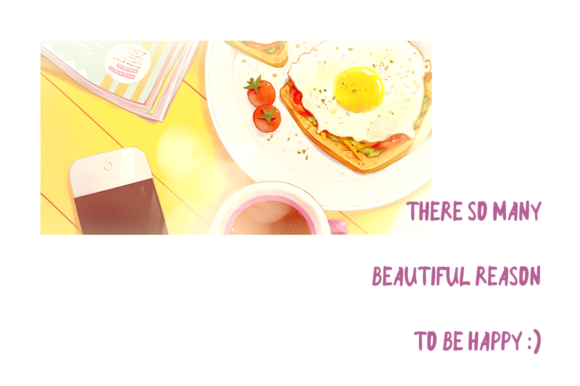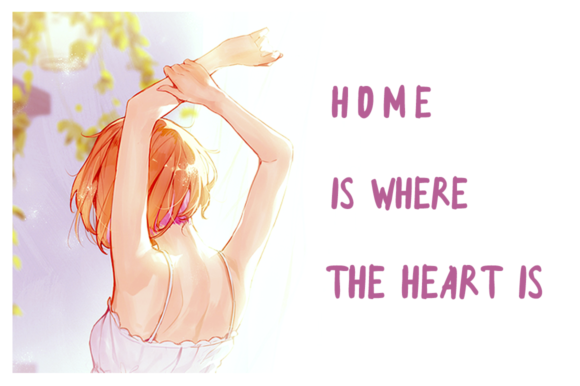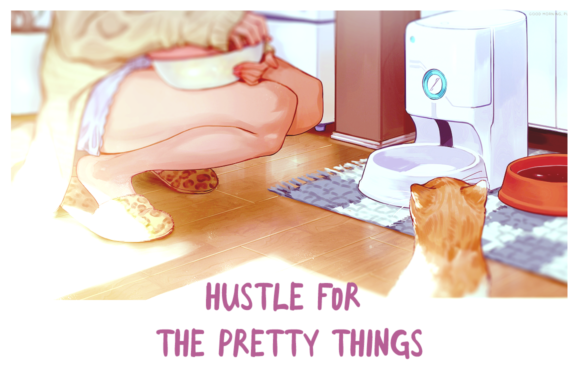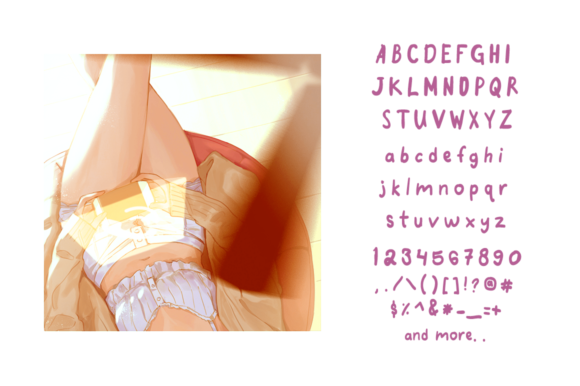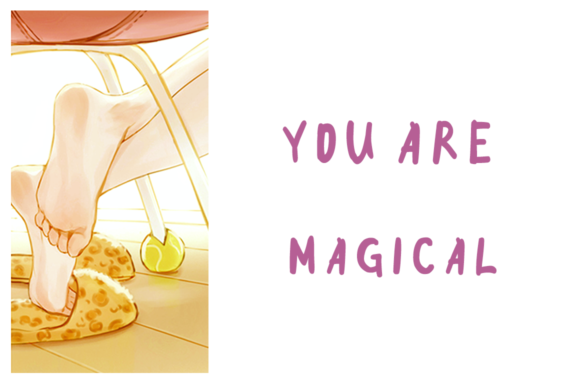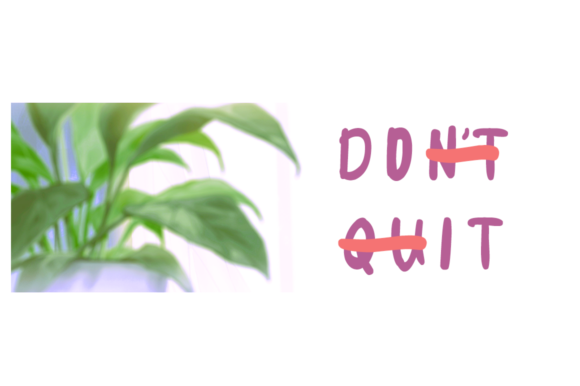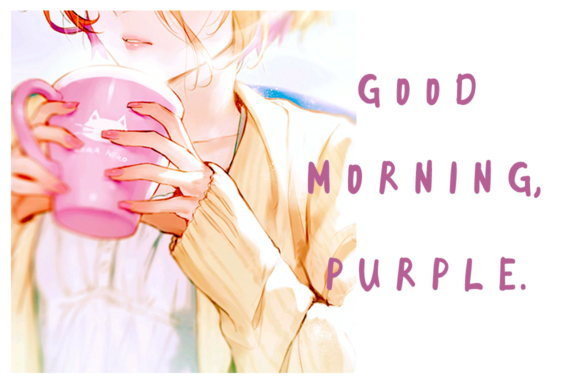
Introducing Good Morning Purple Font: Add a Breezy Touch to Your Creations
Are you tired of using the same old fonts in your designs? Look no further than the Good Morning Purple Font! This fun sans serif font is perfect for amplifying the breeziness of your works, adding a touch of personality to your creations. In this article, we’ll dive into the features and benefits of Good Morning Purple, and explore how it can elevate your designs.
A Fun and Highly Legible Font
Good Morning Purple is a highly legible font, making it perfect for use in both headlines and body texts. Its sans serif design ensures that your text remains clear and easy to read, even at smaller font sizes. This makes it an excellent choice for designers and crafters who want to add a personal touch to their work without sacrificing readability.
One of the standout features of Good Morning Purple is its unique and playful aesthetic. The font’s breezy feel makes it perfect for designs that require a lighthearted and carefree vibe. Whether you’re working on a project for a children’s brand, a lifestyle blog, or a creative agency, Good Morning Purple is sure to add a touch of whimsy to your work.
Adding Cohesion to Your Work
Good Morning Purple is a versatile font that can be used across a range of design projects. Its handwritten feel makes it perfect for adding a personal touch to your work, while its sans serif design ensures that it remains legible and easy to read. This font is ideal for designers and crafters who want to add cohesion to their work, creating a consistent visual identity that ties together different elements.
Whether you’re designing a brand identity, creating social media graphics, or crafting a website, Good Morning Purple can help you achieve a cohesive look and feel. Its unique aesthetic makes it easy to distinguish your brand from others, while its legibility ensures that your message is communicated clearly.
Good Morning Purple is a font that’s perfect for designers and crafters who want to add a touch of personality to their work. Its playful aesthetic makes it ideal for a range of design projects, from branding and advertising to packaging and web design.
One of the benefits of Good Morning Purple is its ease of use. The font is highly versatile, making it easy to use across different design projects and applications. Whether you’re a seasoned designer or a crafty DIY enthusiast, Good Morning Purple is a great addition to your font library.
Key Features of Good Morning Purple Font
• Fun sans serif font: Good Morning Purple is a playful and breezy font that’s perfect for adding a touch of personality to your work.
• Highly legible: The font’s sans serif design ensures that it’s easy to read, even at smaller font sizes.
• Handwritten feel: Good Morning Purple has a unique and playful aesthetic that’s perfect for designs that require a personal touch.
• Versatile: The font can be used across a range of design projects, from branding and advertising to packaging and web design.
In conclusion, Good Morning Purple Font is a fun and highly legible font that’s perfect for designers and crafters who want to add a breezy touch to their creations. Its unique aesthetic and versatile design make it ideal for a range of design projects, from branding and advertising to packaging and web design. Whether you’re a seasoned designer or a crafty DIY enthusiast, Good Morning Purple is a great addition to your font library.